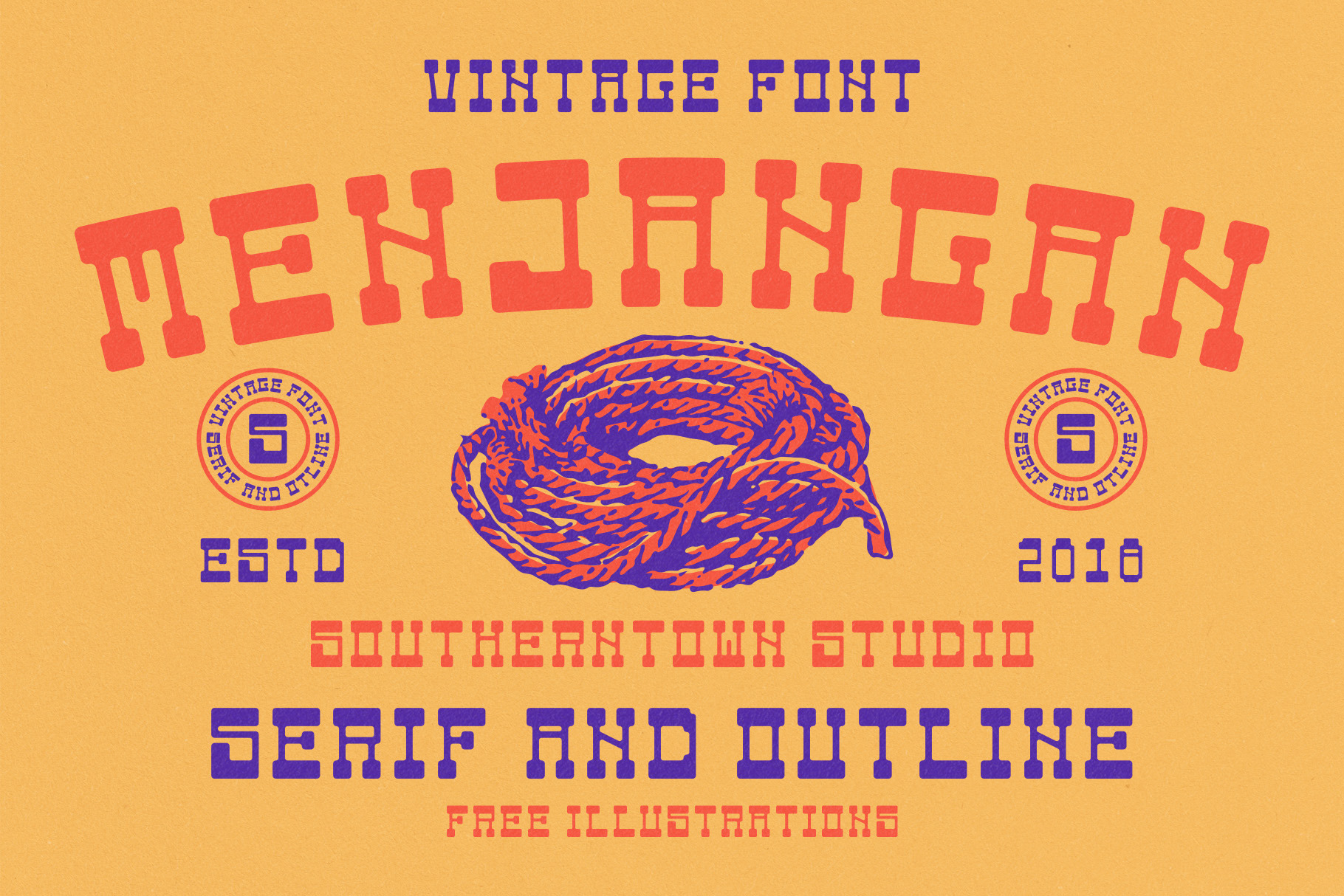
MENJANGAN – Western Serif Font
MENJANGAN is a bold vintage serif font inspired by classic western typography, old frontier posters, and traditional print aesthetics. With strong slab serifs, unique letter shapes, and an authentic retro feel, this font is designed to bring character, strength, and timeless charm to your designs.
Perfect for branding, apparel, posters, logos, packaging, badges, labels, and vintage-style illustrations. MENJANGAN works beautifully for western, rustic, retro, outdoor, and heritage-themed projects.
Uppercase characters
Vintage western serif style
Bold and outline-ready letterforms
Strong readability for headlines and branding
Add a classic frontier spirit to your creative work with MENJANGAN.